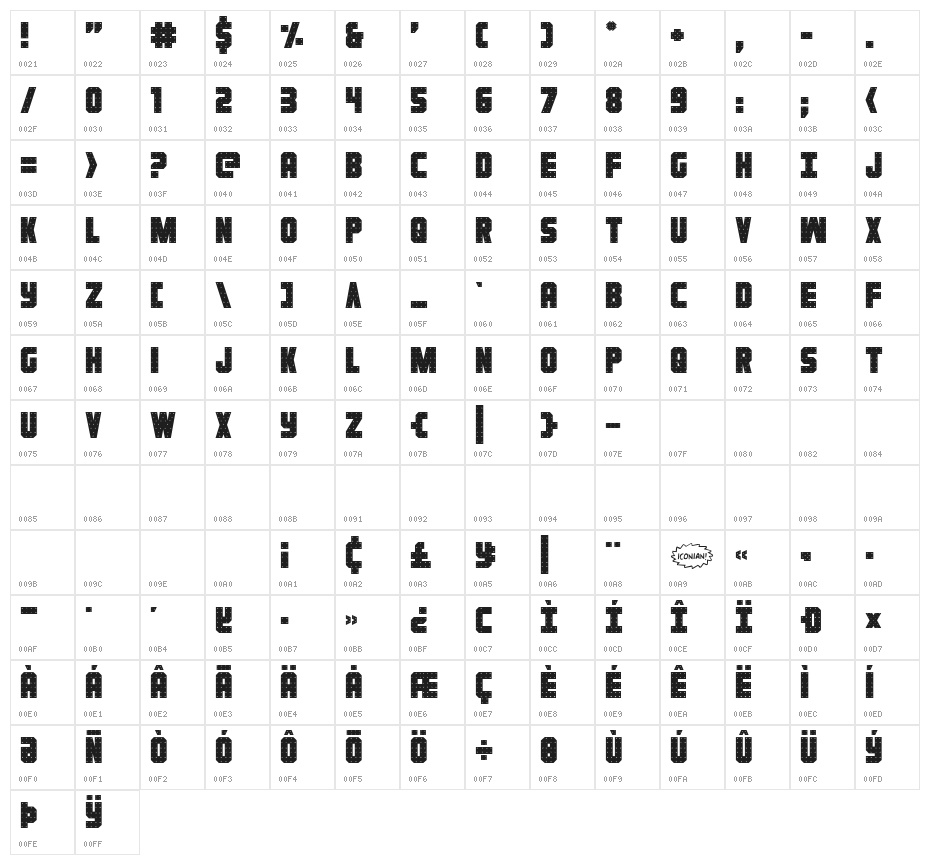
Iron Forge Regular Font
| Stile generale | Industrial, Modern |
| Progetti proposti | Ideal for projects requiring a strong, industrial aesthetic such as branding for construction companies, tech startups, or video game titles. It can also be used for posters, signage, and any design needing a bold statement. |